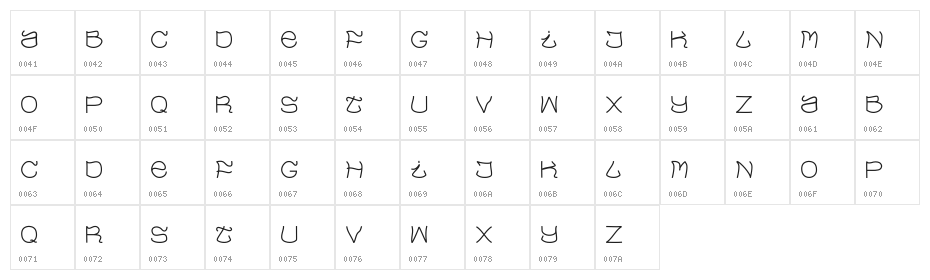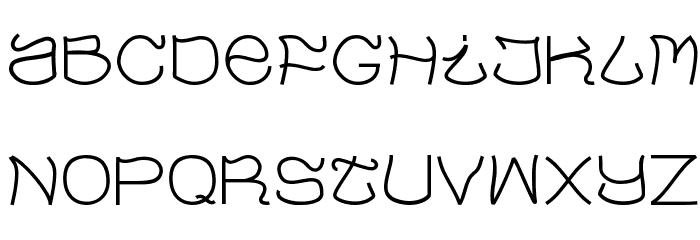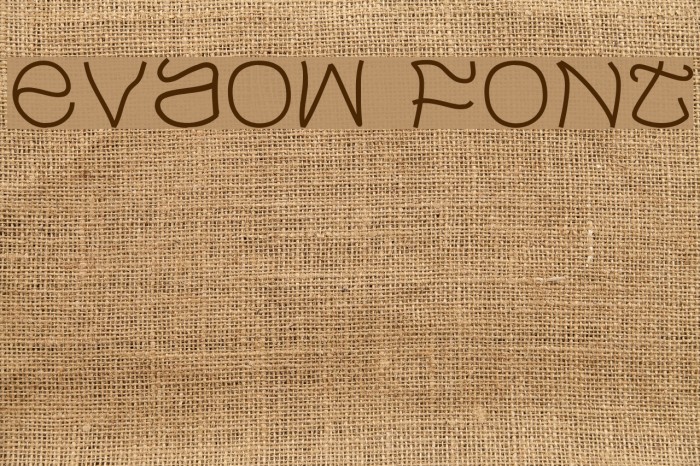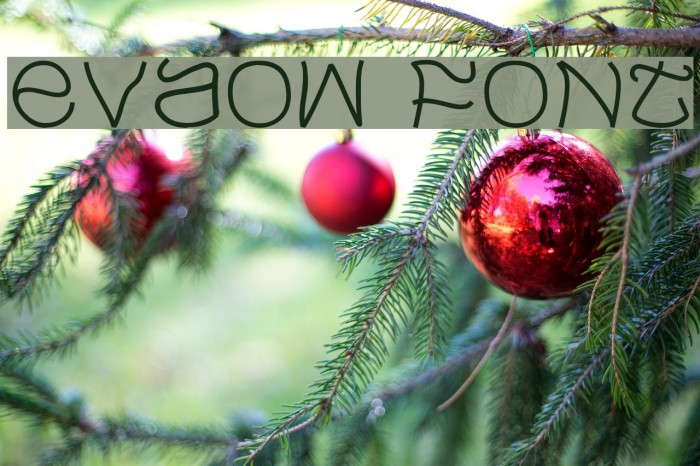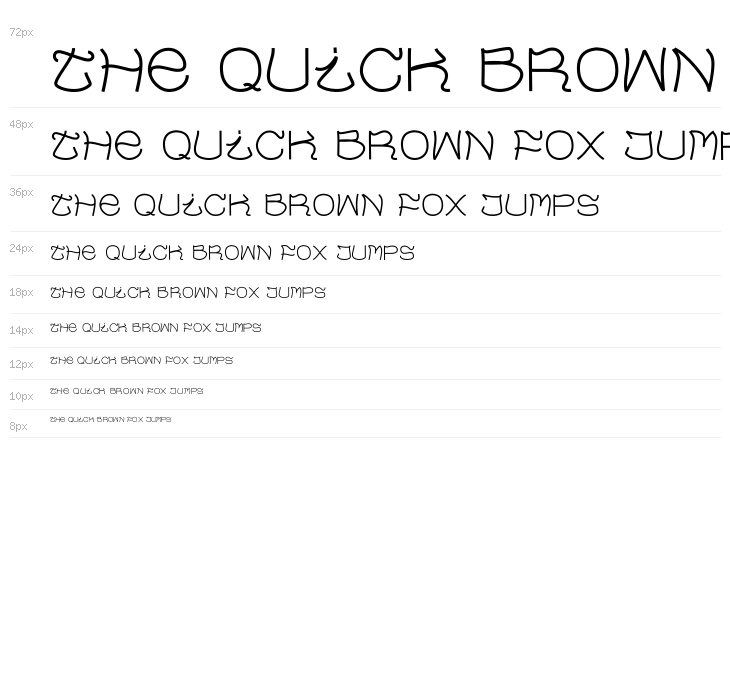
Evaow Font
Evaow Description
This font features a unique and playful design with a whimsical flair. The characters are crafted with a combination of curves and straight lines, giving them an artistic and slightly abstract appearance. The uppercase letters are particularly distinctive, with exaggerated loops and swirls that add a sense of movement and creativity. The lowercase letters maintain the same playful style, ensuring consistency throughout the typeface. The numbers and special characters are equally stylized, making this font suitable for projects that require a touch of fun and originality.
| Overall Style | Playful, Artistic |
| Proposed Projects | Ideal for children's books, creative posters, playful branding, and artistic invitations. |